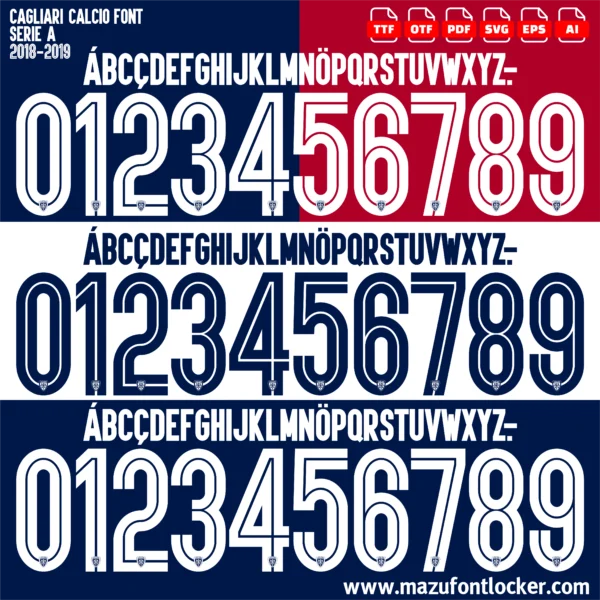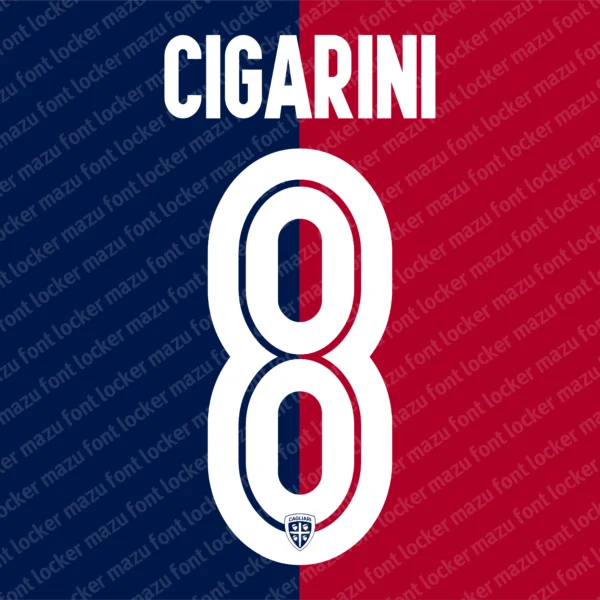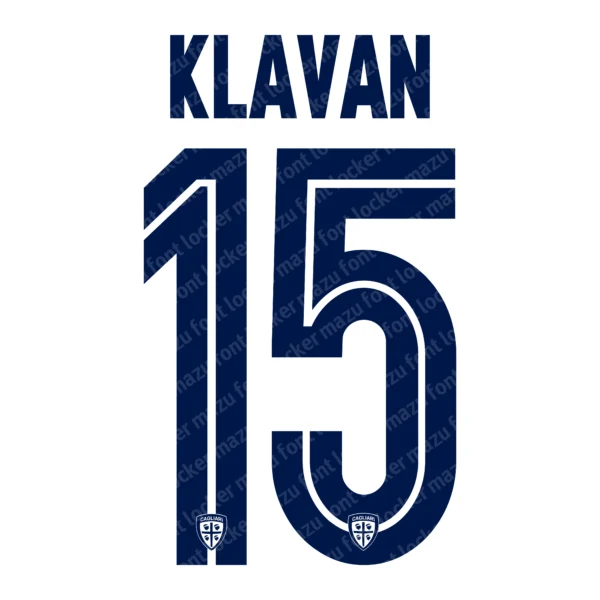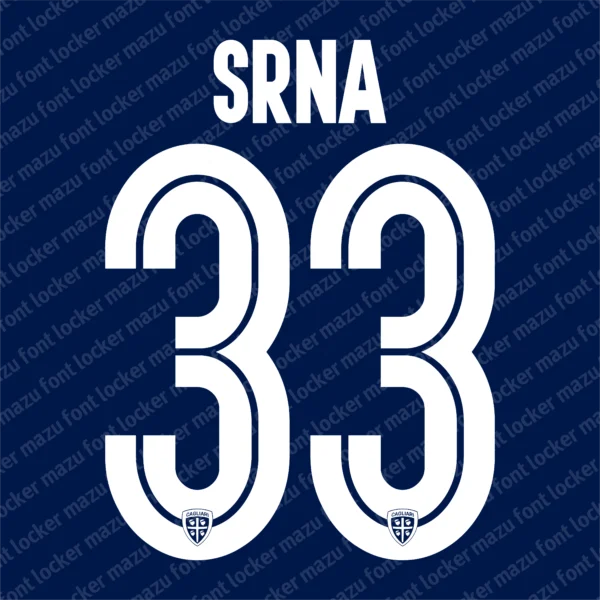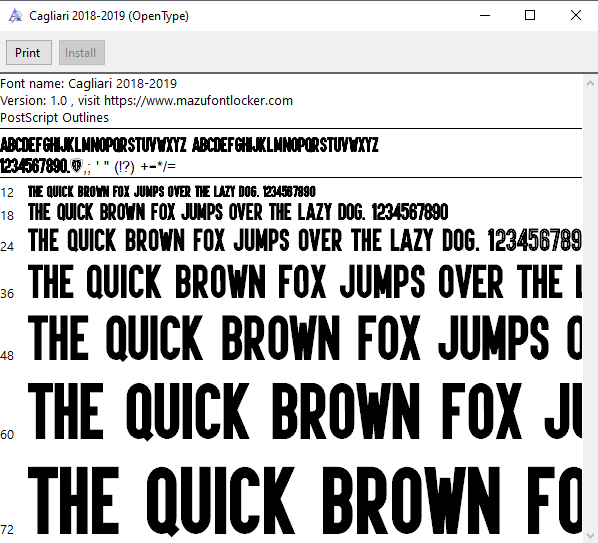
Cagliari Calcio 2018-2019 Font Vector – Epic Rossoblù Masterpiece
This font captures the unstoppable, precision-forged lettering inspired by Cagliari Calcio’s iconic red-and-blue identity, proud Sardinian heritage, legendary I Rossoblù tradition, and fearless warrior-like football spirit — delivering premium authenticity and explosive match-day energy for professional jersey mockups, football graphics, sports branding, fan designs, and high-end creative projects.
Cagliari Calcio 2018-2019 Font Vector – Stunning Red & Blue Typeface
The Cagliari Calcio 2018-2019 Font Vector is a premium typeface that accurately recreates the distinctive match lettering associated with Cagliari Calcio during the 2018-2019 football season. This high-quality vector font kit captures the bold, clean, and instantly recognizable typography that perfectly complements the club’s iconic red and blue identity.
Designed for professional designers, football enthusiasts, jersey collectors, and passionate Cagliari Calcio supporters, the Cagliari Calcio 2018-2019 Font Vector delivers exceptional authenticity for creating realistic jersey mockups, football merchandise, social media graphics, match posters, squad designs, and custom fan artwork. Every character has been carefully recreated to reflect the powerful and precise visual style of one of Italy’s most traditional and passionate football clubs.
Why Choose Cagliari Calcio 2018-2019 Font Vector
This font stands out thanks to its precise vector construction and authentic club-inspired styling. Every letter and numeral has been meticulously recreated to match the distinctive football lettering aesthetic associated with Cagliari Calcio during the 2018-2019 season and its domestic and European campaigns.
Whether you’re producing professional football kit templates, custom jersey concepts, or eye-catching football content, the Cagliari Calcio 2018-2019 Font Vector delivers a genuine match-ready appearance inspired by the identity of I Rossoblu.
The lettering featured in the Cagliari Calcio 2018-2019 Font Vector combines clean geometric lines with bold modern proportions. The result is a premium and highly readable typeface that reflects Cagliari Calcio’s proud football heritage, iconic red and blue colors, Sardinian identity, and passionate global fanbase.
- Complete uppercase A–Z alphabet and numbers 0–9 in authentic Cagliari Calcio 2018-2019 inspired style
- Special Cagliari Calcio badge glyph – Press the “:” (Colon) key to insert the club badge
Cagliari Calcio 2018-2019 Season
The 2018-2019 season marked another exciting chapter for Cagliari Calcio as the Sardinian club competed across domestic football. The club began preparations for the 2018-2019 campaign with preseason fixtures and training as they built momentum for the new season in Serie A. The club’s official schedule covered its domestic ambitions throughout the year. Wearing their iconic red and blue colors, Cagliari Calcio continued to represent a proud football tradition built on passion, community spirit, and a strong connection with supporters at the Sardegna Arena and around the world.
The Cagliari Calcio 2018-2019 Font Vector is an independently designed typeface package inspired by the official shirt lettering and visual identity associated with Cagliari Calcio during the 2018-2019 football season. It has been carefully recreated for football enthusiasts, graphic designers, collectors, jersey creators, and fans producing custom football concepts, digital artwork, and fan-made projects. Please note that this is a fan-made design resource and is not an official product of Cagliari Calcio, Serie A, UEFA, or any associated organization.